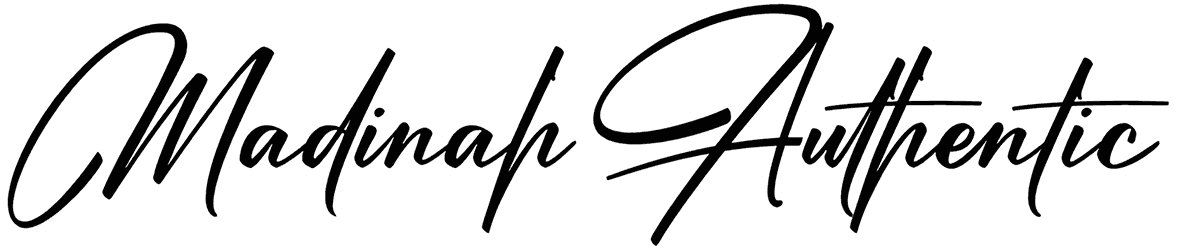
Madinah Authentic Font
Do not look any further than the stunning signature font Madinah Authentic if you are seeking a way to enhance your invitations, films, tattoos, and love letters to the next level.
Even though this beautiful cursive font looks hard to read at first glance, it is easy to use in your artwork and will give you the best results. Simply give it a shot, and your audience will be blown away.